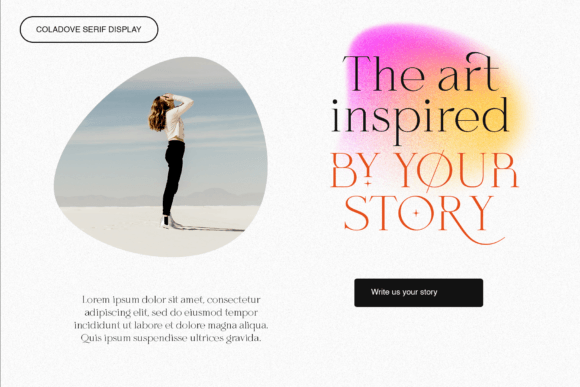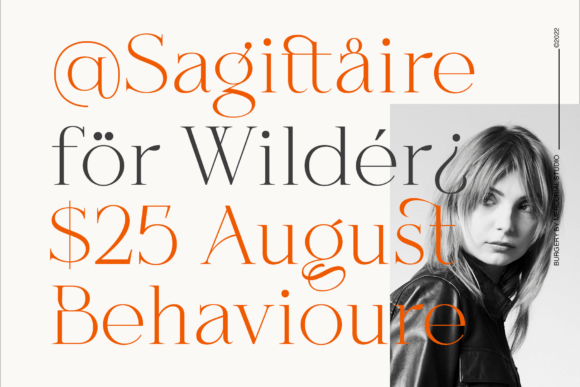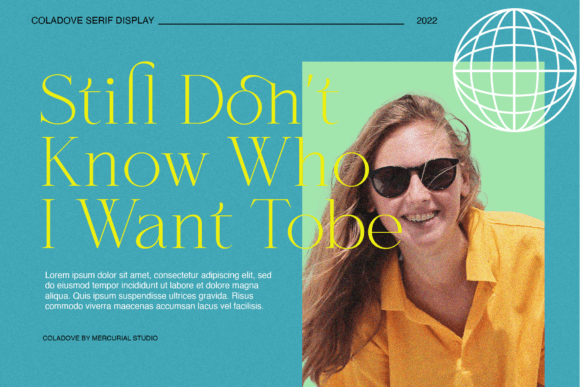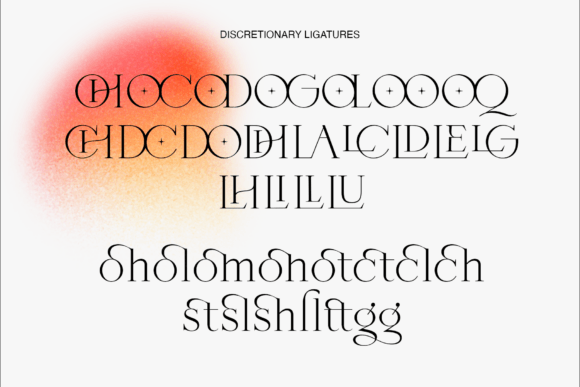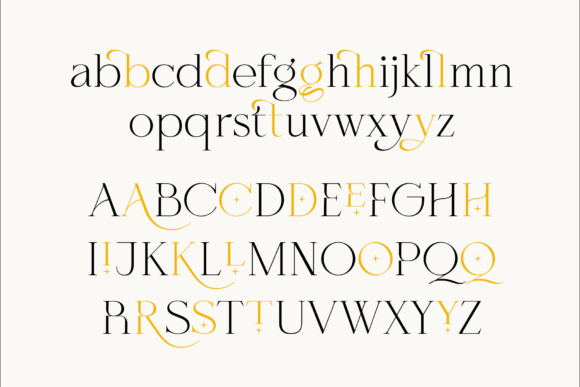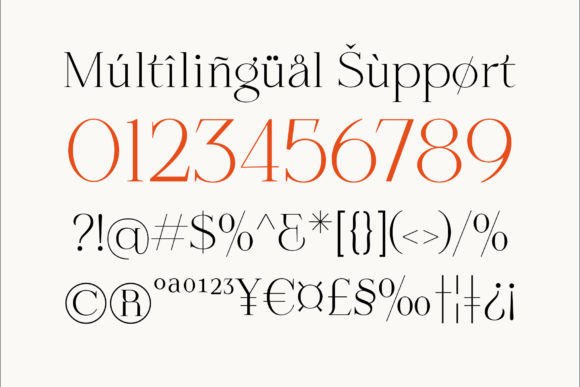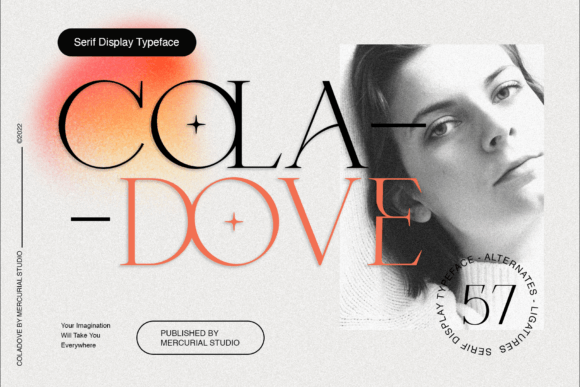
Introducing Coladove Font: Elevate Your Designs with Elegance and Sophistication
In the world of typography, a well-crafted font can make all the difference in elevating a design from ordinary to extraordinary. Coladove Font is a stunning serif display typeface that embodies the perfect blend of elegance and modernity, making it an ideal choice for designers and crafters seeking to add a touch of luxury to their projects.
The Essence of Coladove Font
Coladove Font is a sophisticated serif display typeface that seamlessly merges classic elegance with a modern edge. Its refined charm is characterized by stylish ligatures and versatile alternates, which provide designers with a wide range of creative possibilities. Whether you’re working on editorial designs, branding, or creative projects, Coladove Font is sure to make a lasting impression.
Timeless yet Contemporary Aesthetic
One of the standout features of Coladove Font is its timeless yet contemporary aesthetic. This font effortlessly bridges the gap between classic and modern design, making it perfect for a variety of applications. From fashion magazines and logos to high-end packaging, Coladove Font brings a level of sophistication and refinement that’s hard to match.
Perfect for Fashion and Luxury Brands
Fashion designers and luxury brands often require fonts that exude elegance and refinement. Coladove Font fits the bill perfectly, with its stylish ligatures and alternates providing a level of versatility that’s essential for high-end branding. Whether you’re creating a fashion magazine, designing a logo, or crafting high-end packaging, Coladove Font is the perfect choice.
Key Features of Coladove Font
- Stylish Ligatures: Coladove Font features beautiful ligatures that add a touch of elegance to any design.
- Versatile Alternates: With a range of alternates, designers have the flexibility to experiment with different styles and moods.
- Sophisticated Serif Design: The serif design of Coladove Font adds a level of refinement and sophistication to any project.
- Timeless yet Contemporary: Coladove Font’s aesthetic is both timeless and contemporary, making it perfect for a wide range of applications.
Why Choose Coladove Font?
With so many fonts available, why choose Coladove Font? The answer lies in its unique blend of elegance and modernity. Coladove Font is more than just a font – it’s a design statement. Its refined charm and sophisticated aesthetic make it perfect for designers and crafters who want to elevate their designs and add a touch of luxury.
How to Use Coladove Font
Coladove Font is incredibly versatile and can be used in a variety of design applications. Here are a few ideas to get you started:
- Fashion Magazines: Use Coladove Font as a headline font to add a touch of elegance and sophistication.
- Branding: Coladove Font is perfect for logos and branding, adding a level of refinement and luxury to any brand.
- High-End Packaging: Use Coladove Font to create stunning packaging that stands out on store shelves.
- Editorial Designs: Coladove Font is perfect for editorial designs, including books, magazines, and newspapers.
In conclusion, Coladove Font is a stunning serif display typeface that embodies the perfect blend of elegance and modernity. With its stylish ligatures, versatile alternates, and sophisticated aesthetic, it’s perfect for designers and crafters seeking to add a touch of luxury to their projects. Whether you’re working on fashion magazines, logos, high-end packaging, or editorial designs, Coladove Font is sure to make a lasting impression. So why wait? Let your imagination take flight with Coladove Font’s refined charm.